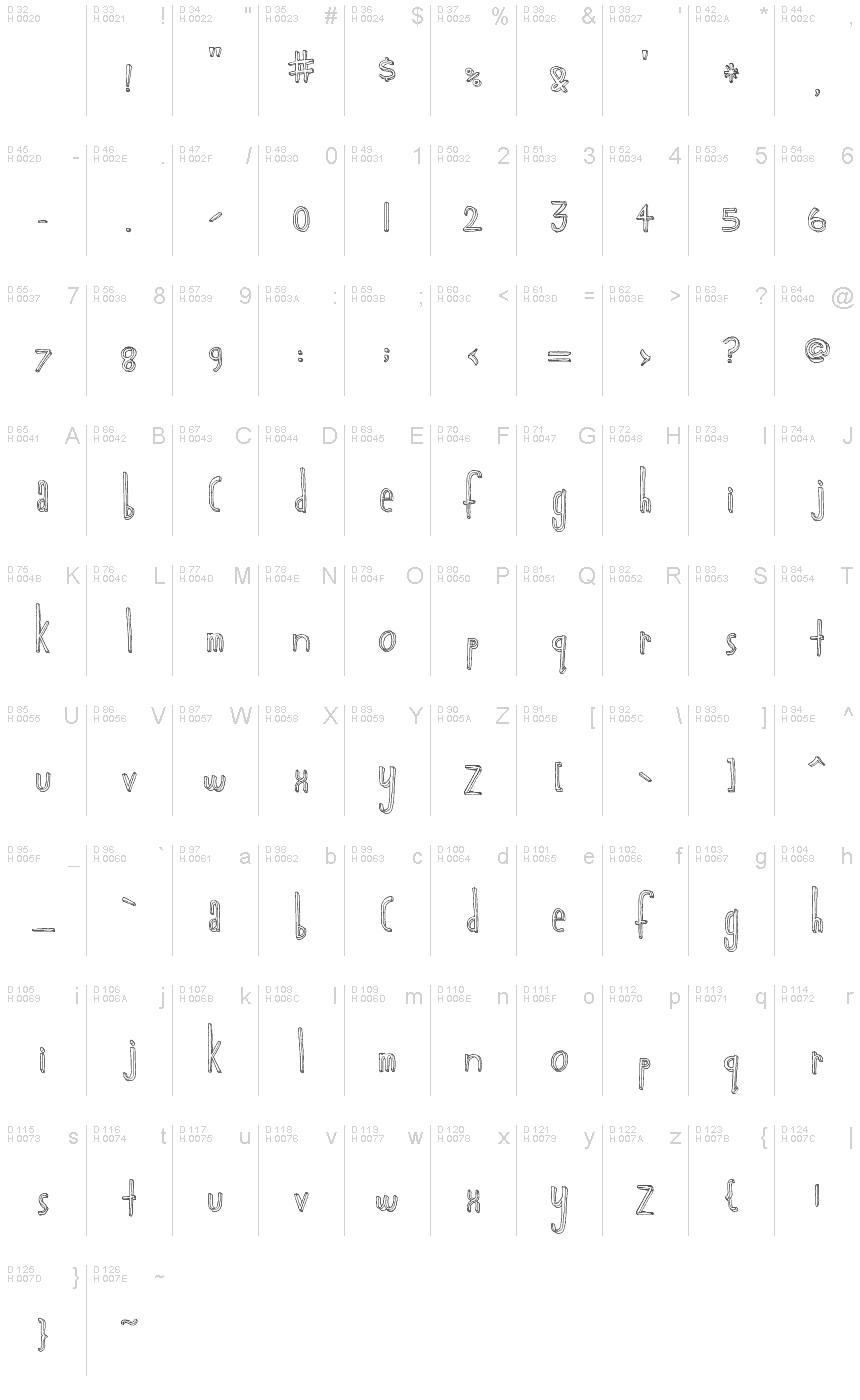
PrivateFort
"Private Fort" is a delightfully quirky and unconventional font designed by Max Infeld Xerographer Fonts. With its cartoon-inspired, condensed style, this display font exudes a playful and whimsical charm. The unique letterforms, characterized by their organic curves and angles, create a visually captivating and memorable aesthetic.
This font would be an excellent choice for projects that require a touch of playfulness and character, such as children's book covers, greeting cards, or branding for artisanal or creative businesses. Its condensed width also makes it a suitable option for limited-space applications, ensuring legibility and impact.